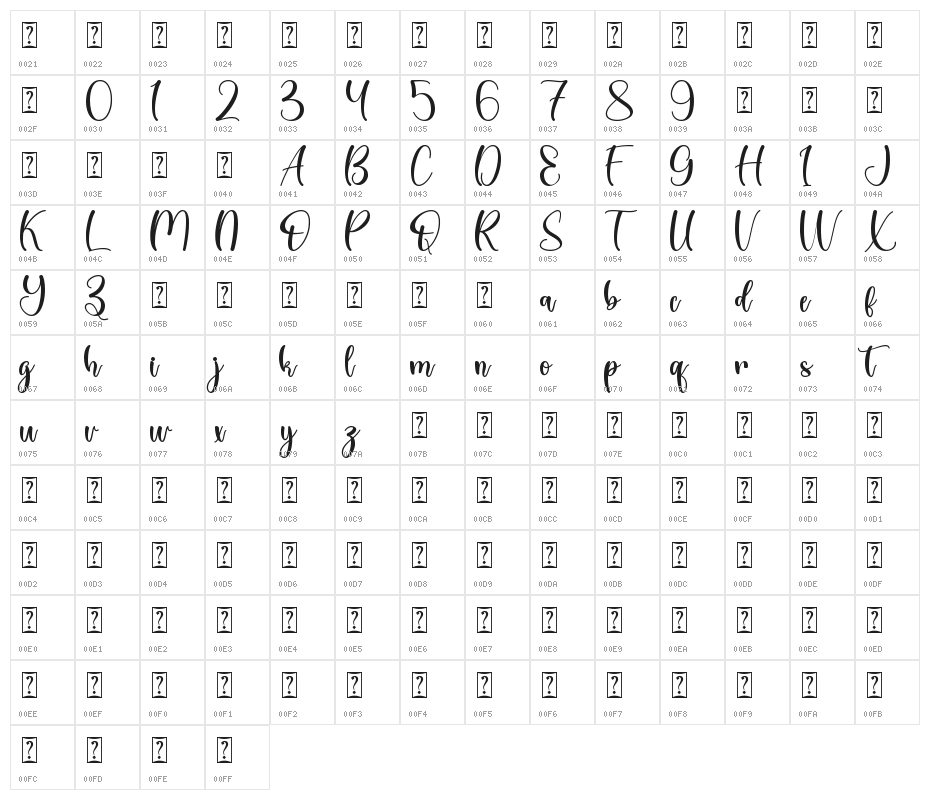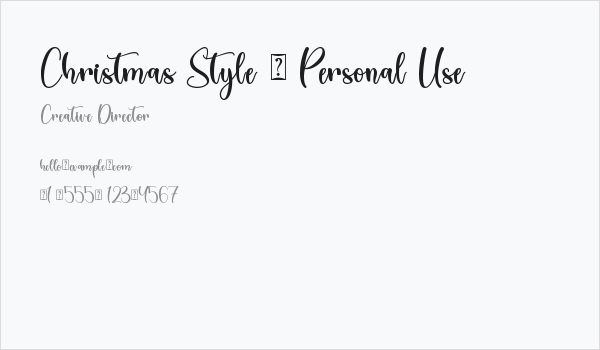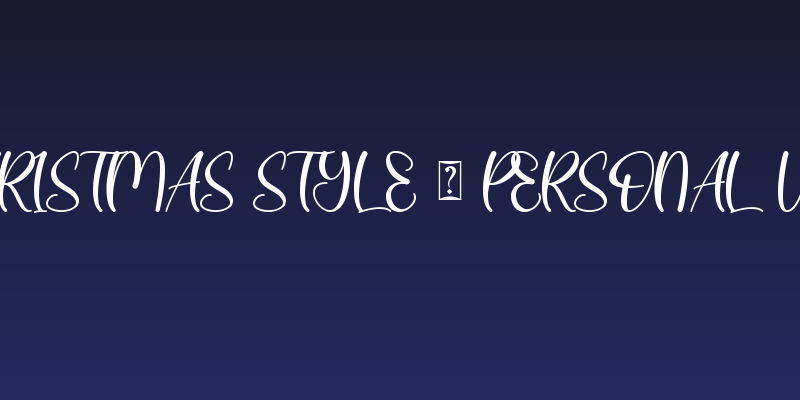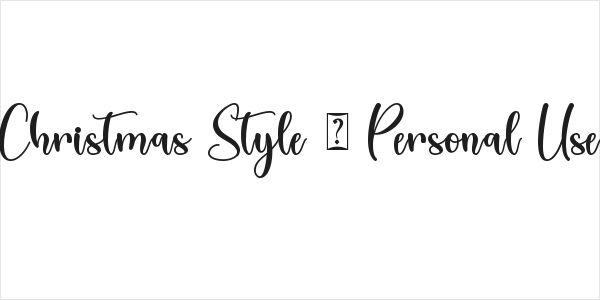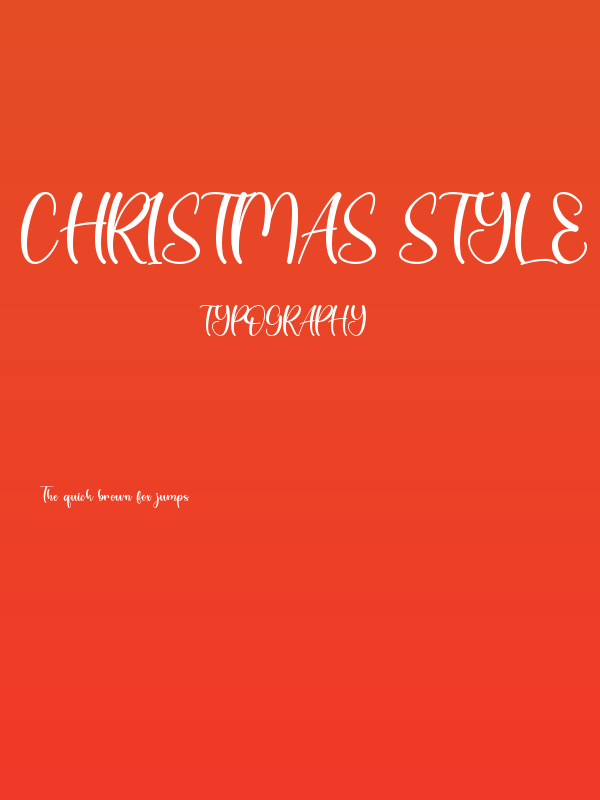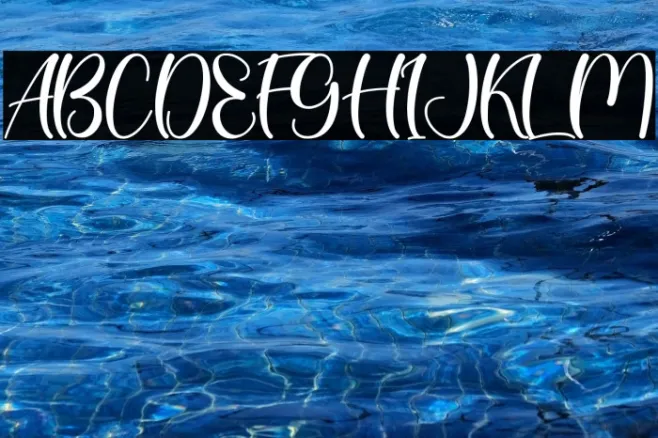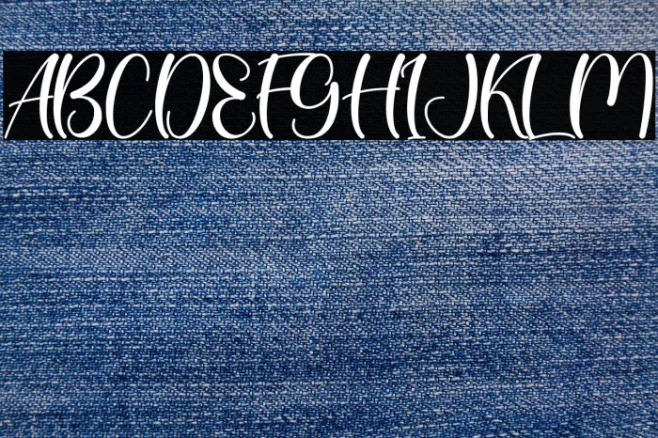
Christmas Style - Personal Use Font
Christmas Style - Personal Use Description
This font features a festive, flowing script style that evokes a sense of holiday cheer. The uppercase letters are elegantly curved with a slight slant, giving them a dynamic and lively appearance. The lowercase letters maintain a consistent style, with some characters featuring playful loops and swashes that add to the overall whimsical feel. The numerals are bold and maintain the same flowing aesthetic, ensuring they stand out while remaining cohesive with the alphabet. This font is perfect for creating a warm and inviting atmosphere, ideal for holiday-themed projects.
| Proposed Projects | Ideal for Christmas cards, holiday invitations, festive banners, and seasonal branding. |